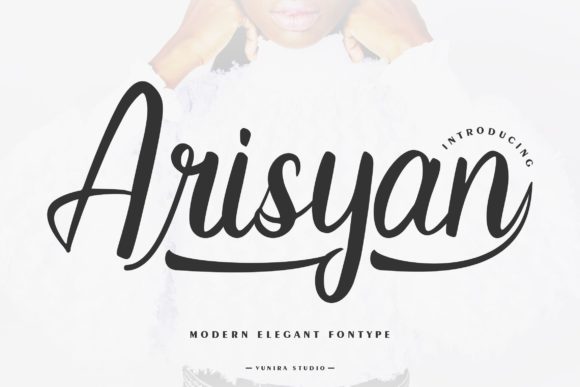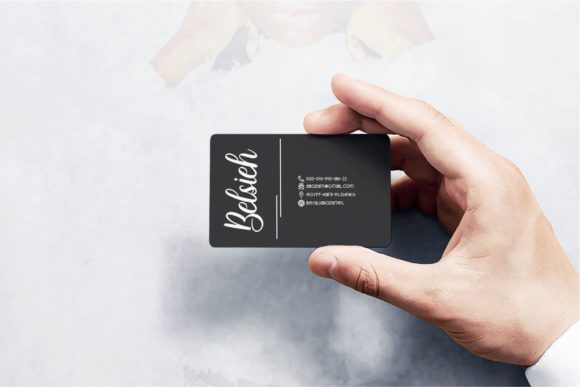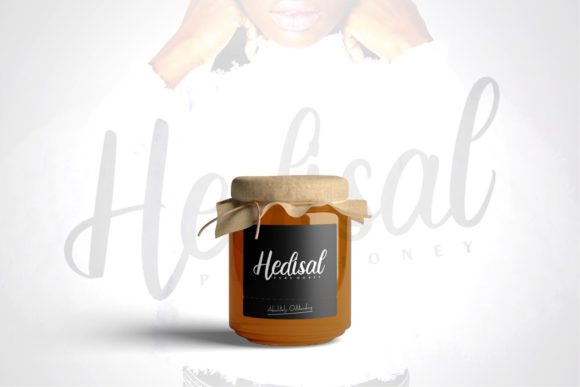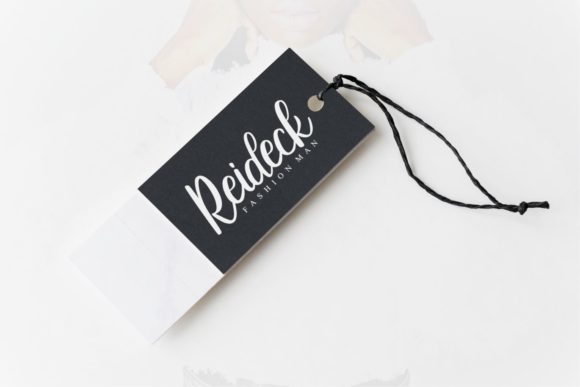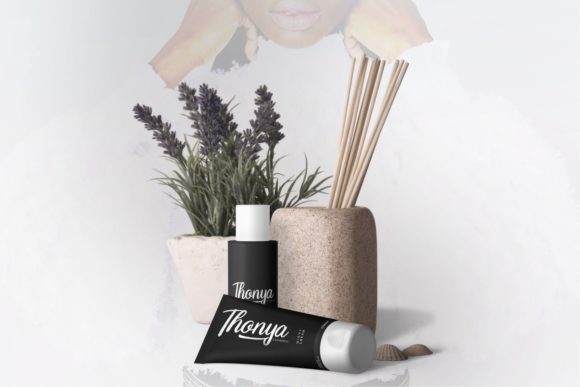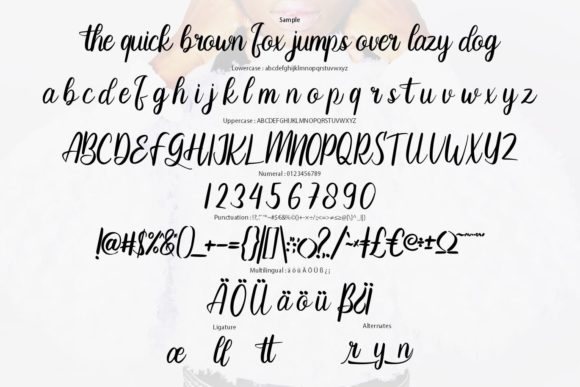
Arisyan Font
About Arisyan Font
Arisyan is a beautiful and well-balanced cursive script font that exudes elegance and style. With its smooth curves and flowing letterforms, this font is perfect for fashion branding, editorial designs, and any project that requires a touch of sophistication.
The carefully crafted design of Arisyan ensures that each letter flows seamlessly into the next, creating a harmonious and graceful appearance. The smooth curves and delicate strokes give the font a sense of movement and fluidity, making it visually appealing and pleasing to the eye.
Whether used for fashion branding, editorial layouts, or other design projects, Arisyan adds a touch of sophistication and elegance. Its cursive style adds a sense of charm and refinement, making it ideal for logos, packaging, advertising materials, and more. The font’s versatility allows it to adapt to various design themes and concepts, providing endless possibilities for creativity.
By adding Arisyan to your projects, you can confidently create stunning designs that capture attention and leave a lasting impression. Its well-balanced and cursive nature lends a sense of professionalism and sophistication, making it an excellent choice for fashion branding and editorial designs.
As you explore the font, you’ll notice its smooth curves and careful attention to detail. Each letter is meticulously crafted to ensure a harmonious and visually pleasing result. This attention to detail extends to the spacing and kerning, ensuring that the overall appearance of your text is balanced and pleasing to the eye.
The versatility of Arisyan makes it a valuable asset in your design toolkit. Its clean and legible style makes it suitable for a wide range of applications, including branding, packaging, invitations, signage, and more. You can confidently use Arisyan to add a touch of elegance and refinement to your projects.
In conclusion, Arisyan is a well-balanced and cursive script font that adds a touch of sophistication and style to your fashion branding, editorial designs, and other creative projects. Its smooth curves and graceful letterforms make it a versatile choice for a range of applications. By incorporating Arisyan into your designs, you can create visually stunning and professional-looking materials that are sure to impress.